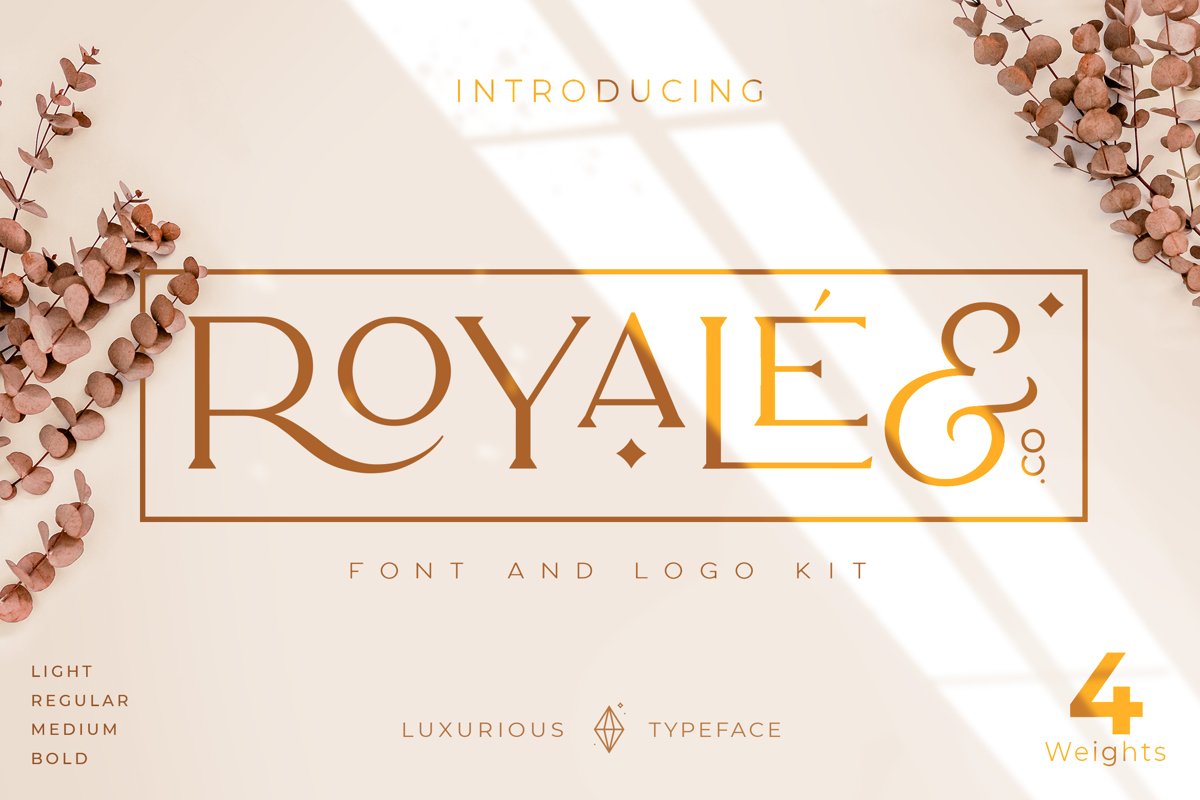
Royale Luxurious Typeface
Royale Luxurious is a Minimalist Modern Elegant font with beautiful ligatures, tons of special alternative glyphs, ornament and multilingual support. It's a very versatile font that works great in large and small sizes. Royale Luxurious is perfect for branding projects, Logo design, Clothing Branding, product packaging, magazine headers, or simply as a stylish text overlay to any background image.
• 4 Weights font
• All caps
• Stylistic Alternates & Ligatures
• Accented characters
• Multiple Languages Supported